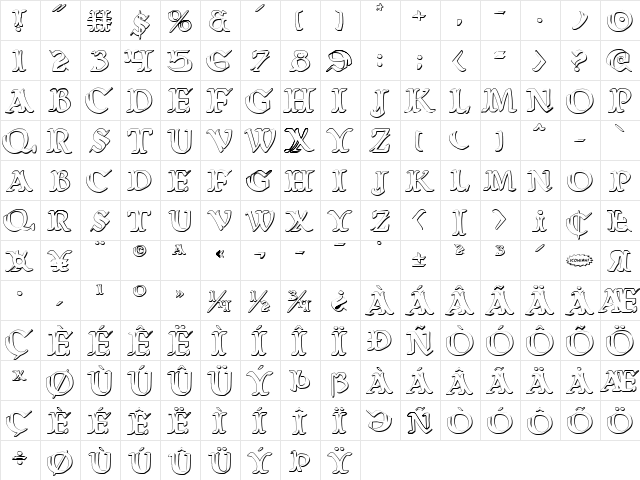
Wars of Asgard 3D Regular
Design Context for Wars of Asgard 3D Typeface
Wars of Asgard 3D is a composed and adaptable typeface that performs quietly and consistently across a wide range of design contexts.
Pro Tip: Use Wars of Asgard 3D in both headline and body roles to test its range before committing to a single application.